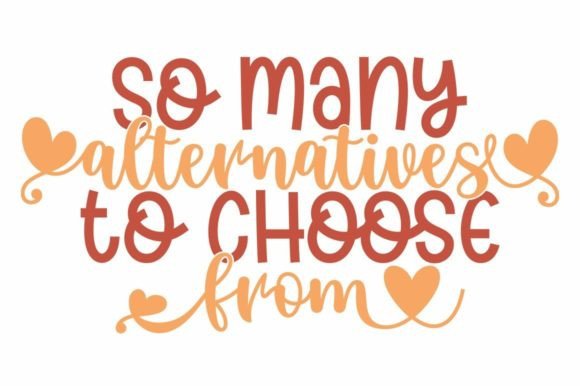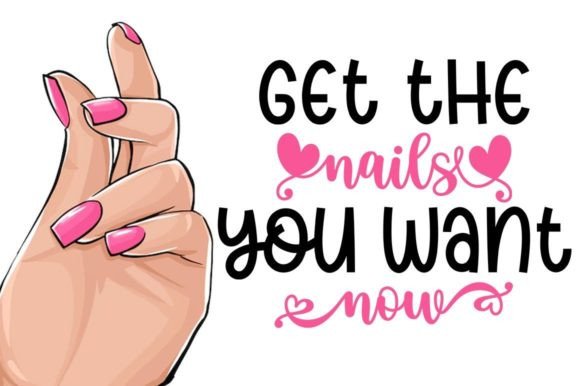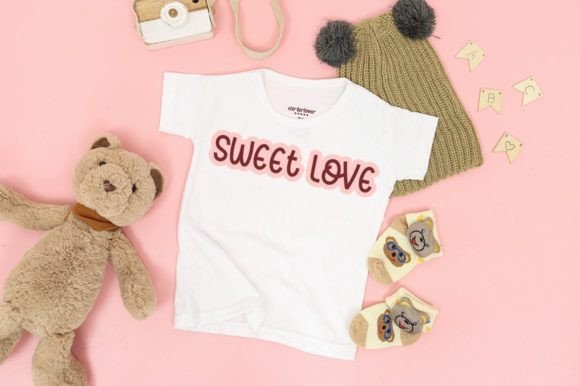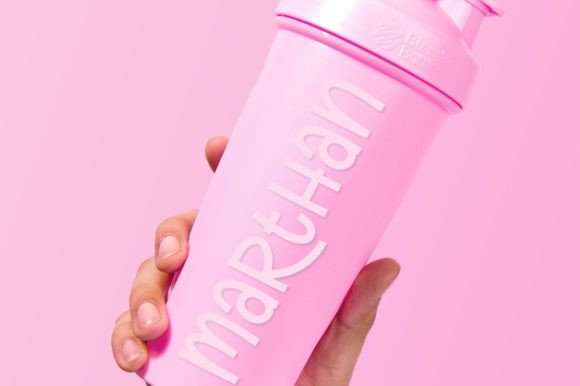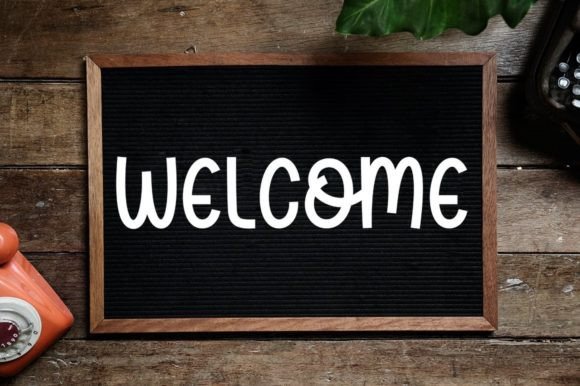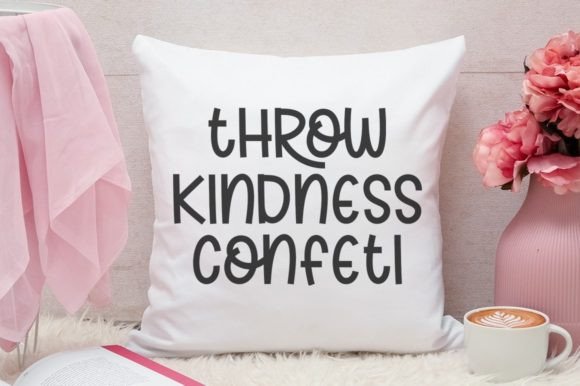
About Hope Love Brown Duo Font
“Hope Love Brown” is an adorable and delightful font duo that brings a lovely touch with an over-sweet taste to your creative projects. This versatile duo is perfect for a wide range of design applications, including but not limited to wedding invitations, Valentine’s Day creations, logos, branding, social media graphics, stickers, and more.
The charm of “Hope Love Brown” lies in its adorability and the harmonious interplay between the two fonts in the duo. The sweet and playful nature of the fonts makes them ideal for projects that demand a touch of cuteness and fun. Whether you’re working on romantic designs for Valentine’s Day or creating a whimsical logo, this font duo adds a delightful and endearing quality.
The versatility of “Hope Love Brown” extends to various design contexts. From formal occasions like wedding invitations to more casual applications like social media posts and stickers, the font duo adapts seamlessly to different styles and themes. Its ability to convey sweetness and charm makes it a valuable asset for designers looking to create visually appealing and heartwarming designs.
The duo’s suitability for projects related to love and special occasions enhances its appeal. “Hope Love Brown” brings a unique character to your designs, adding a touch of warmth and joy that resonates with the themes of love and celebration.
In conclusion, “Hope Love Brown” is not just a font duo; it’s a delightful package that infuses adorability and sweetness into your creative projects. Its versatility and suitability for a range of design applications make it a valuable choice for designers seeking fonts that can convey love and charm across diverse contexts. Whether you’re working on a special occasion project or adding a playful touch to your branding, “Hope Love Brown” is designed to bring joy and sweetness to your designs.